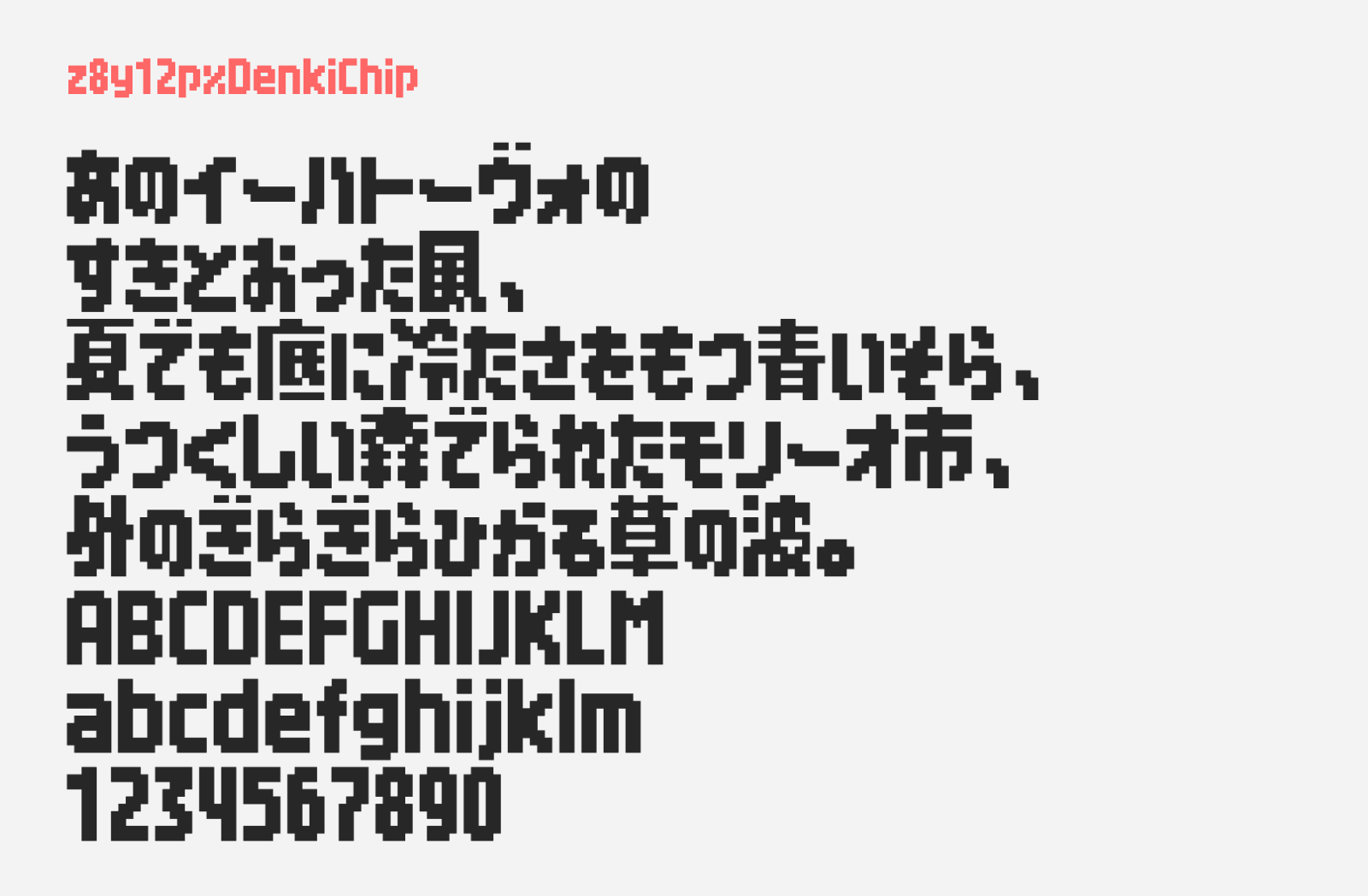
x8y12pxDenkiChip
x8y12pxDenkiChip (でんきチップ) is a compact and bold Japanese pixel font by hicchicc. Designed around a 2px thick stroke as its base unit, x8y12pxDenkiChip or DenkiChip in short was crafted with a strong focus on compactness and visual impact. The name translates loosely to “electric chip,” and the font lives up to that energy: tightly packed, condensed bold letterforms that give off a sense of charged, dense power. This is a pixel font that does not whisper; it announces itself.
The vertical metrics are designed to fill a 12px cap height almost entirely, making it one of the most space-efficient fonts of its kind. On Windows environments, setting the font size to 9pt or 12px may enable dot-by-dot rendering, and embedded bitmaps will display at native resolution when supported. The horizontal metrics are structured with variable advance widths: proportional Latin letters, 6px for numerals, 8px for hiragana and katakana, and 10px for kanji. This is an unusually compact and “challenging” horizontal configuration, as the creator describes it, but one that lends the font a dense, grid-like energy perfectly suited to game UIs, retro-style interfaces, and pixel art projects. In terms of kanji coverage, DenkiChip currently implements education kanji from the first through fourth grades (Jōyō kanji grades 1 to 4), with plans to extend coverage through sixth grade in future updates. It’s free to download and be used commercial projects, as it’s licensed under SIL Open Font License.
- Hiragana and Katakana
- Kanji (Jōyō kanji grades 1 to 4 totaling about 640 characters)
- Alphanumerics
- Latin scripts
- Symbols and Punctuations